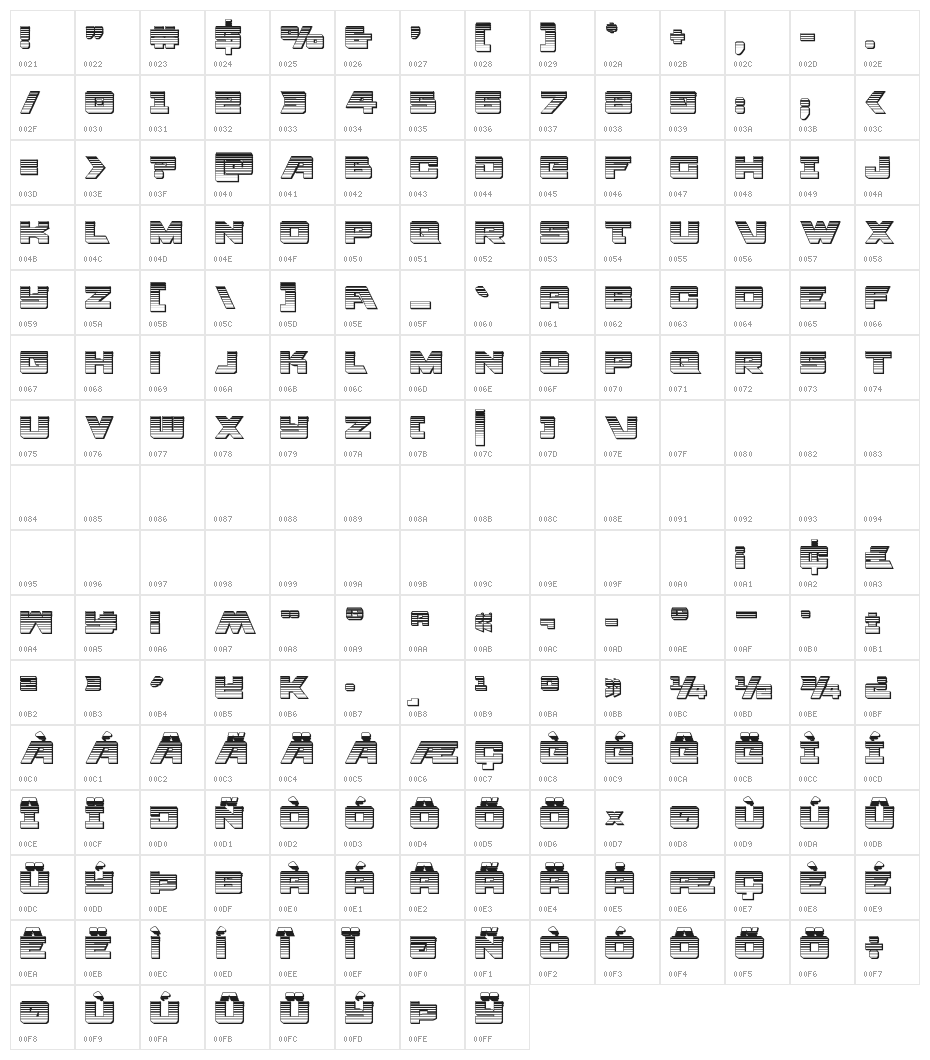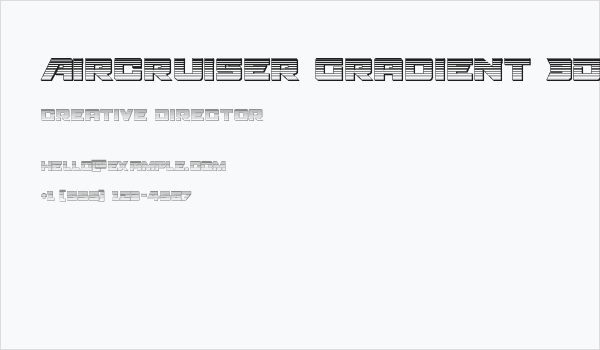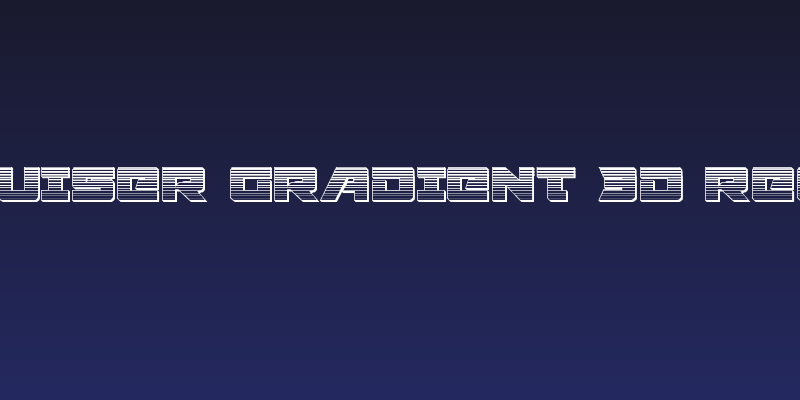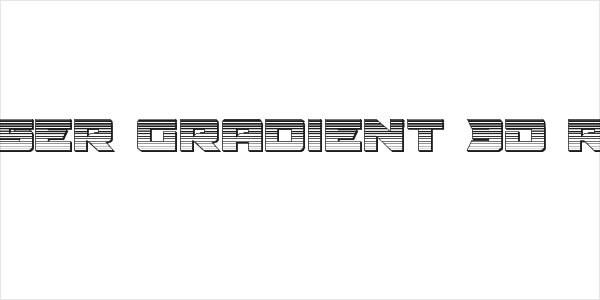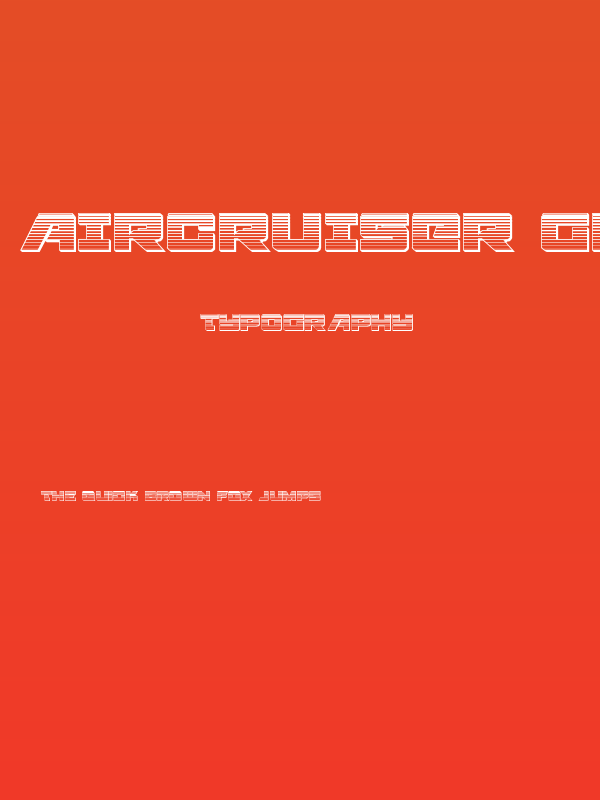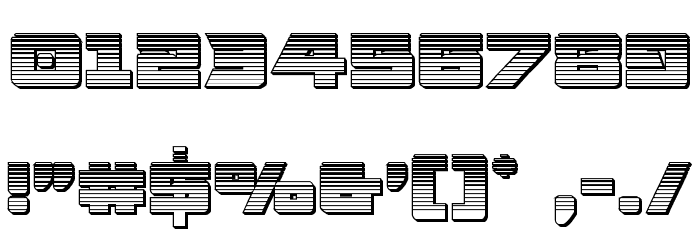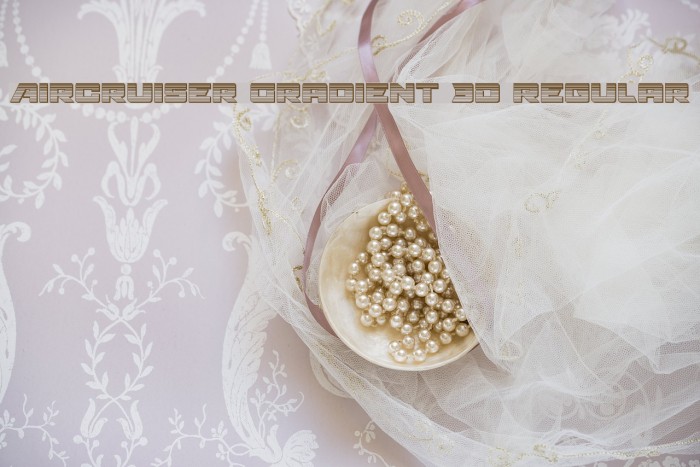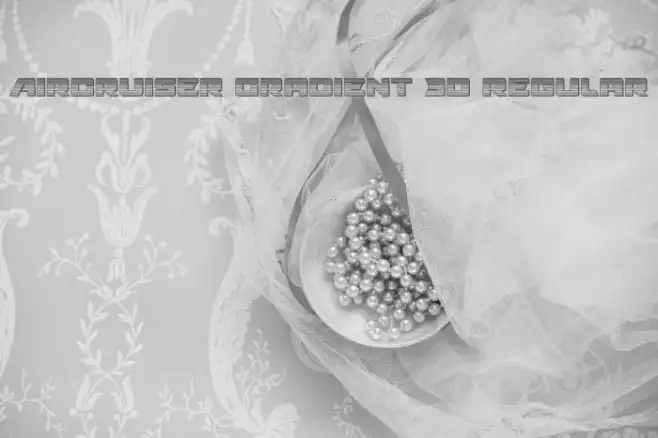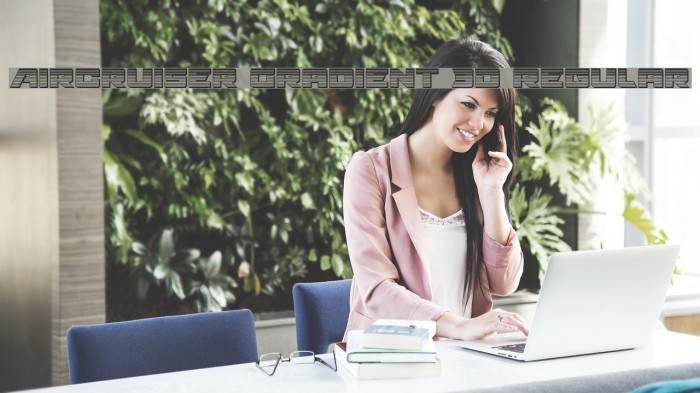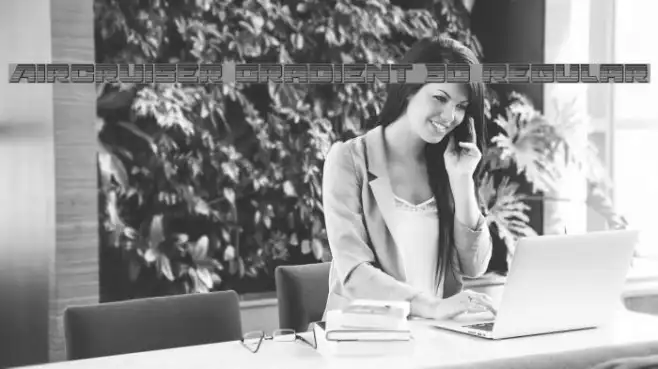
Aircruiser Gradient 3D Regular Font
Aircruiser Gradient 3D Regular Description
This font features a bold, three-dimensional design with a gradient effect that gives each character a layered, striped appearance. The uppercase letters are structured with sharp angles and clean lines, creating a futuristic and dynamic look. The numbers and special characters maintain the same bold, layered style, ensuring consistency across all elements. The font's unique 3D effect is achieved through parallel lines that create a sense of depth and movement, making it stand out in any design. Its geometric and modern aesthetic is ideal for projects that require a strong visual impact.